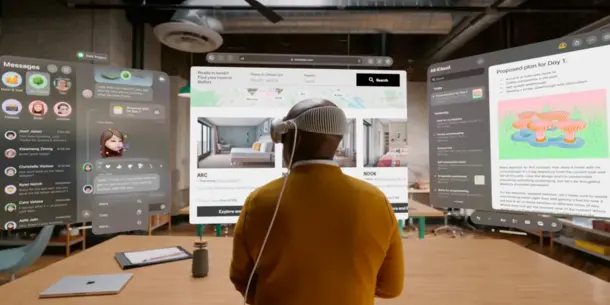
The Era Of Spatial Typography Is Here
The Apple Vision Pro opens up a whole new dimension for type design.
Apple’s iPhone kick-started an app economy that changed the look of user interfaces and graphic design. Might the Vision Pro and spatial computing do something similar? At least when it comes to type design, some think it’s inevitable.
“Spatial typography designed for augmented or virtual reality opens up a third dimension for type design”, says Phil Garnham, executive creative director at the type design company Monotype.